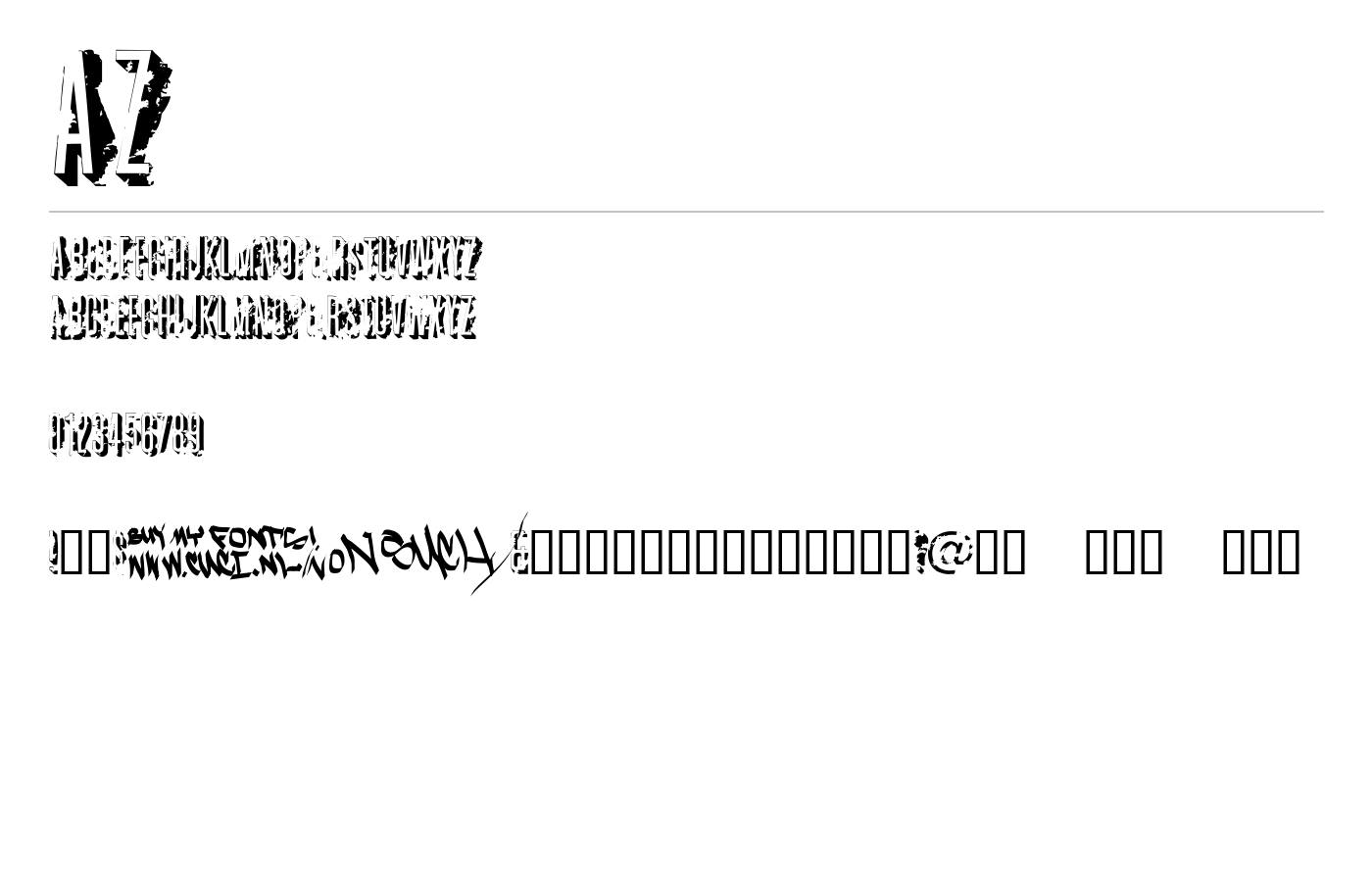
AZ Font is a bold, condensed sans serif typeface with a distressed, grunge texture that gives it a raw, edgy character. Its irregular strokes and rough edges make it ideal for designs seeking a rebellious, urban, or underground vibe, perfect for posters, music branding, and streetwear graphics that require a strong visual impact.
AZ Font